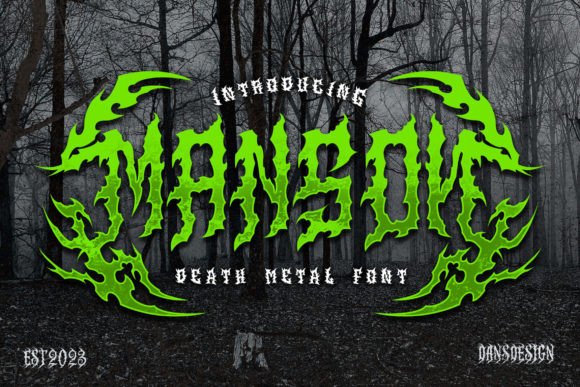
Step into the realm of exclusivity with Manson Modern Blackletter Metal Horror Font, the bold and enigmatic font that shatters the boundaries of ordinary typography. This masterpiece, forged by the visionary Dansdesign, is not just a collection of letters and symbols; it's an expression of raw power, an embodiment of the macabre, and an invitation to unleash your creativity like never before.
Unleash the Beast Within:
With its razor-sharp edges and intricate detailing, Manson Modern Blackletter Metal Horror Font possesses an aura of mystery and intrigue that captivates the senses. Let your designs scream with individuality as you embrace the darkness lurking within this font.
Forge Your Legacy in Ink:
For tattoo artists seeking a font that resonates with their creative vision, Manson Modern Blackletter Metal Horror Font is the ultimate weapon. Its bold strokes and haunting aesthetic will transform your designs into timeless works of art that tell stories of mystery and enchantment.
Embrace the Dark Beauty:
Step beyond the mundane and explore the realm of the extraordinary with Manson Modern Blackletter Metal Horror Font. Its fusion of modern and old-world aesthetics creates a captivating contrast that will leave your audience spellbound.
Defy Convention, Embrace Originality:
Manson Modern Blackletter Metal Horror Font is a testament to the power of imagination and the audacity to break free from the ordinary. With its distinctive character, this font will set your designs apart from the crowd and leave an indelible mark on your audience's minds.